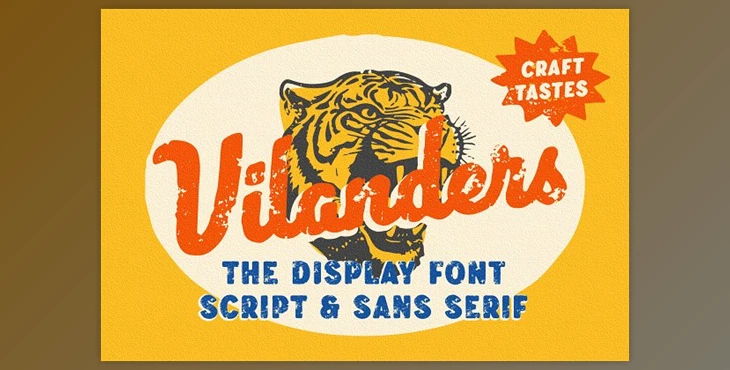
Vilanders - Vintage Stamp Font - CreativeMarket 91581354: Presenting Vilanders, an essential hand-drawn script and san serif font duo meticulously crafted for graphic designers. This collection, featuring three distinctive styles (regular, rough, and stamp) alongside 20 hand-drawn motorcycle illustrations, is a versatile package perfect for logo creation, branding, apparel design, and more. Elevate your designs with a touch of vintage charm and stamp font flair using Vilanders.
Explore the endless possibilities and infuse your designs with the unique charm of Vilanders, where vintage aesthetics and stamp font elements come together seamlessly. Ideal for a wide range of creative projects, Vilanders is a valuable addition to your design toolkit.
Some great features of Vilanders - Vintage Stamp Font:
- Three style typefaces (regular, rough, and stamp)
- Uppercase, lowercase, numeral, symbol, punctuation, and alternates in the script font
- All-caps, numeral, symbol, and punctuation in the sans-serif font
What is Vilanders - Vintage Stamp Font?
Vilanders - Vintage Stamp Font is a font package available on the CreativeMarket platform. This font is designed to emulate the look and feel of vintage stamp typography, offering a nostalgic and retro aesthetic. The font is designed to evoke the appearance of old-fashioned stamp typography, typically seen on vintage posters, packaging, or signage.